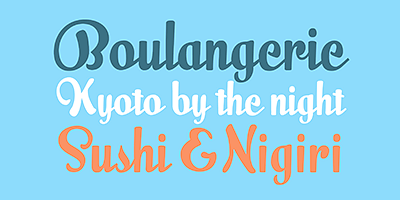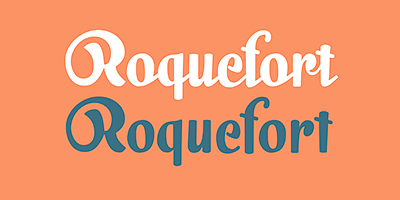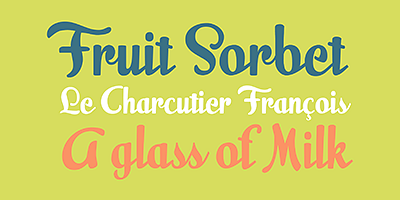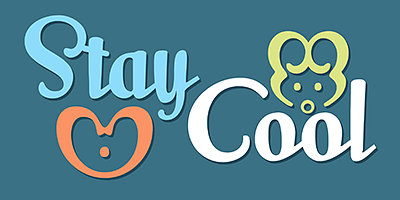
The hand-lettered signage of 1920s and 1930s America produced many typographic jewels that digital type has yet to manifest. This face is but one of them. Unearthed by Alfredo Graziani and Alejandro Paul from a 1923 Speedball lettering manual, Milk Script is a distinctive upright script that offers well-nourished majuscules and sweet-flowing minuscules. A non-connecting variation of this versatile display script is also offered for additional aesthetic control.